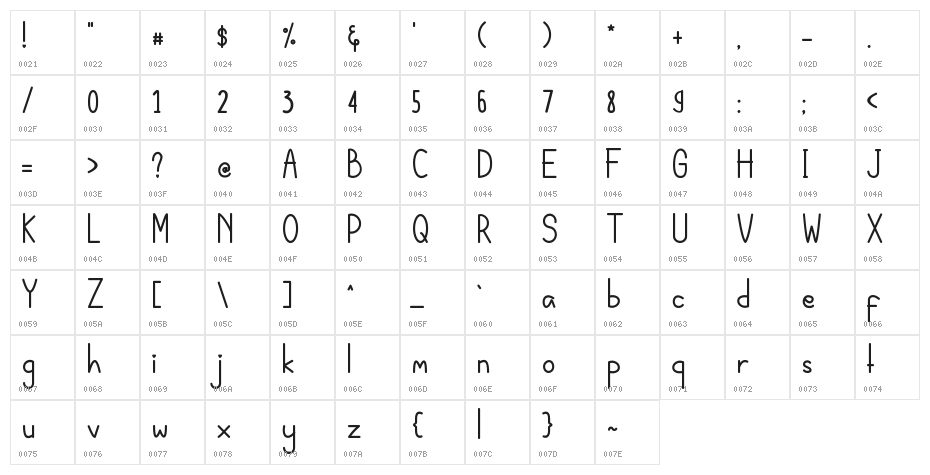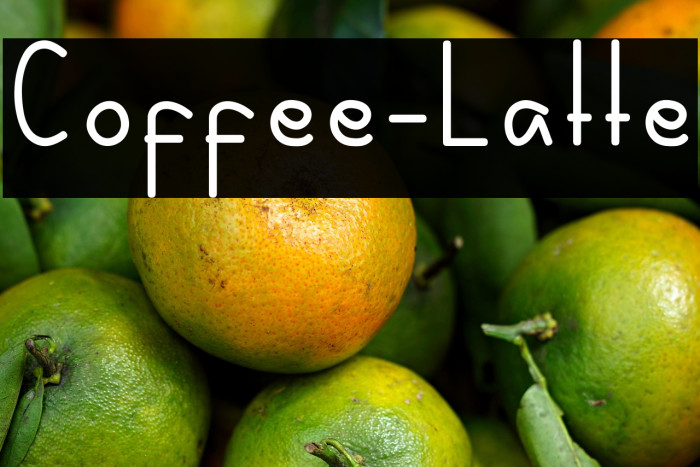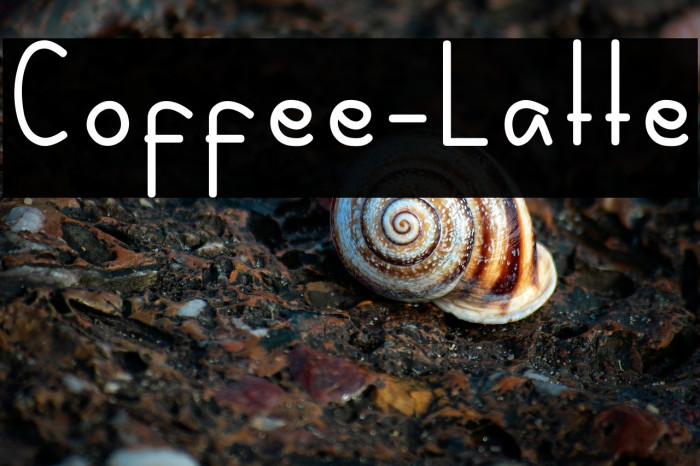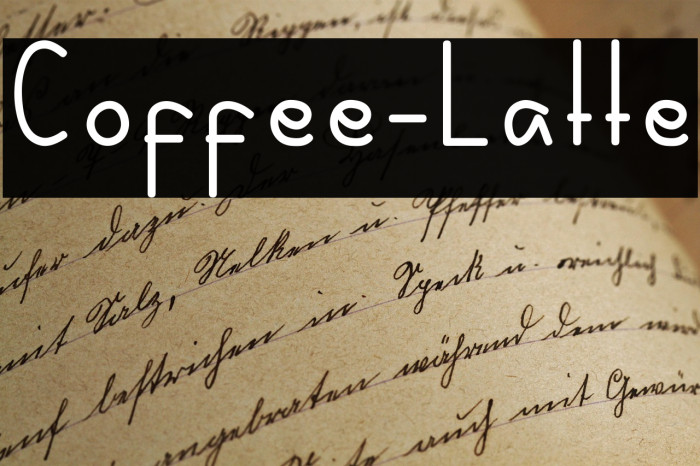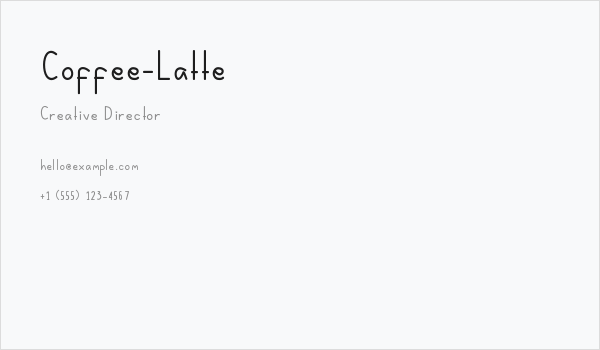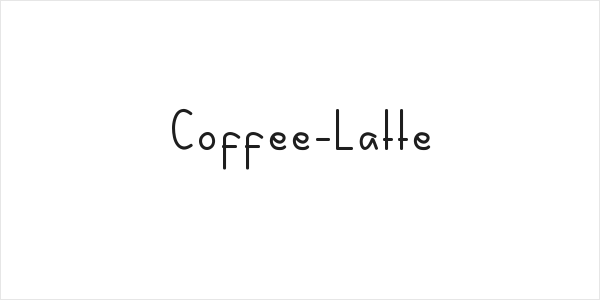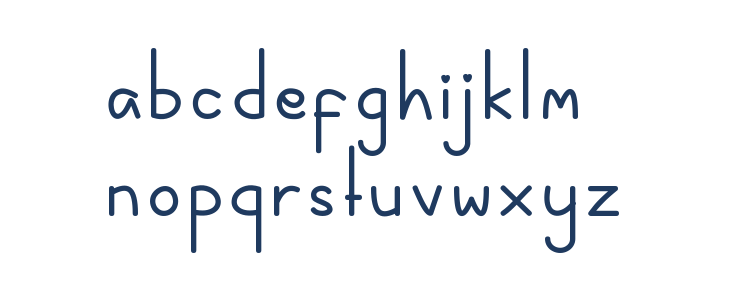
Coffee-Latte Font
Coffee-Latte Description
This font features a playful and casual style, characterized by its rounded and slightly irregular letterforms. The uppercase letters are tall and narrow, while the lowercase letters maintain a consistent height, giving the font a cohesive look. The numerals are clear and easy to read, matching the overall style of the alphabet. Special characters are included, with a similar rounded and approachable design. The font's informal and friendly appearance makes it suitable for a variety of creative projects.
| Proposed Projects | Ideal for children's books, playful branding, casual invitations, and creative social media graphics. |